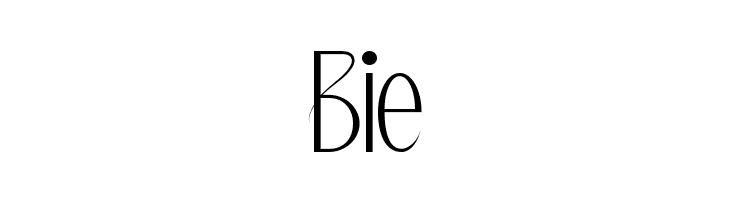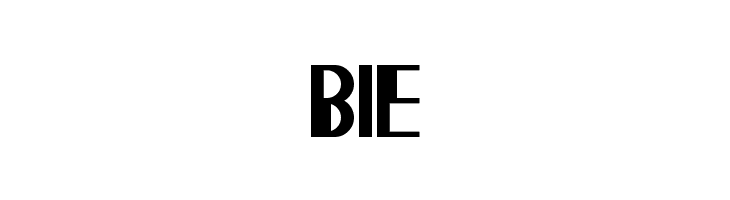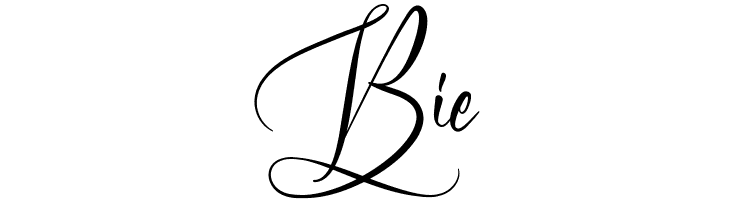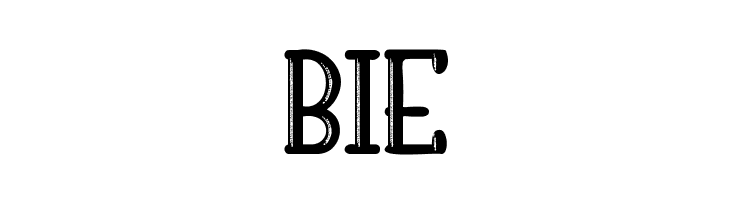
A modern, artistic font with tall, narrow letterforms and elegant curves.
A bold, modern font with geometric shapes and clean lines, perfect for impactful headlines and branding.
A bold, modern font with sharp angles and smooth curves, ideal for striking headlines.
An elegant, flowing script font with cursive, handwritten style.
A bold, geometric outline font with a modern, industrial aesthetic.
A playful and dynamic font with exaggerated curves and varying stroke widths.
A bold, expressive handwritten font with fluid strokes and a modern flair.
A bold, decorative font with a vintage style and intricate patterns.